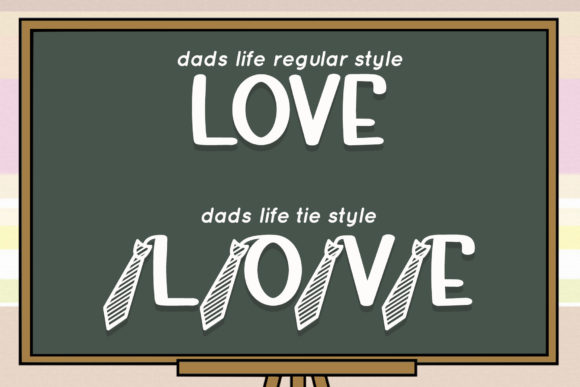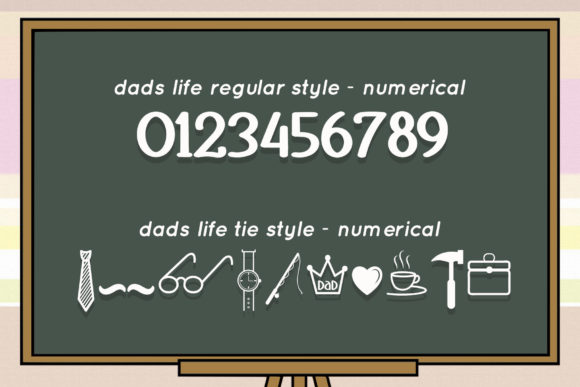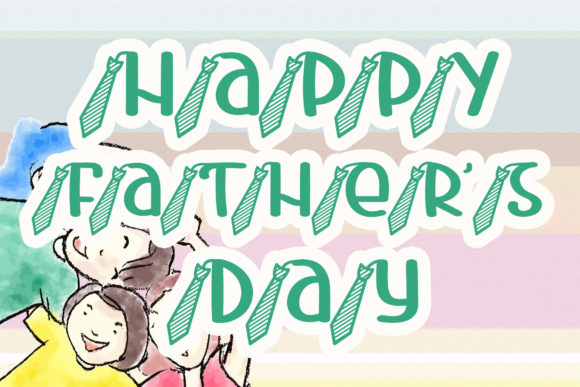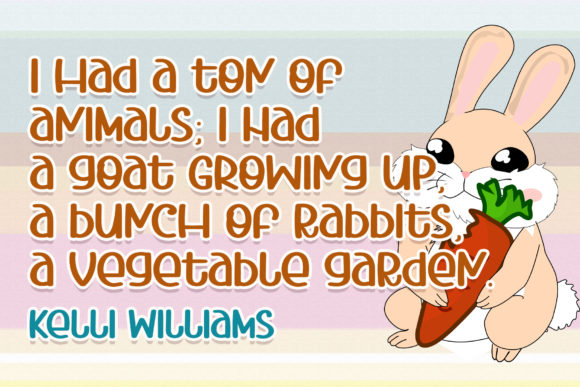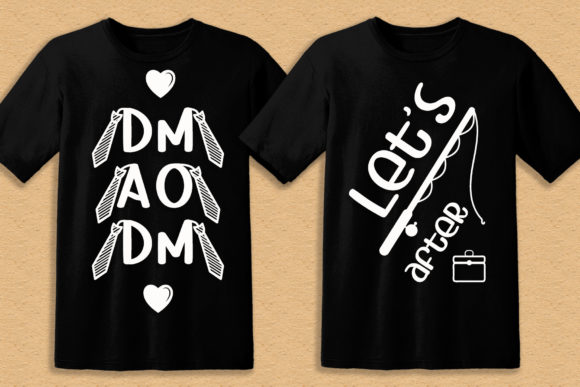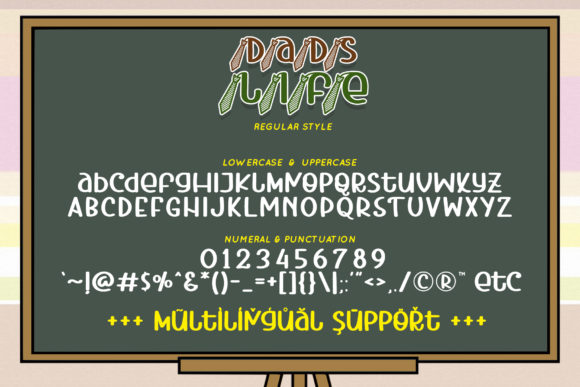
Introduction to Dads Life Font
Dads Life is unique and fun display font.
It features tie-themed characters that will take your Fatherโs day crafting projects to the next level .
Key Features of Dads Life Font